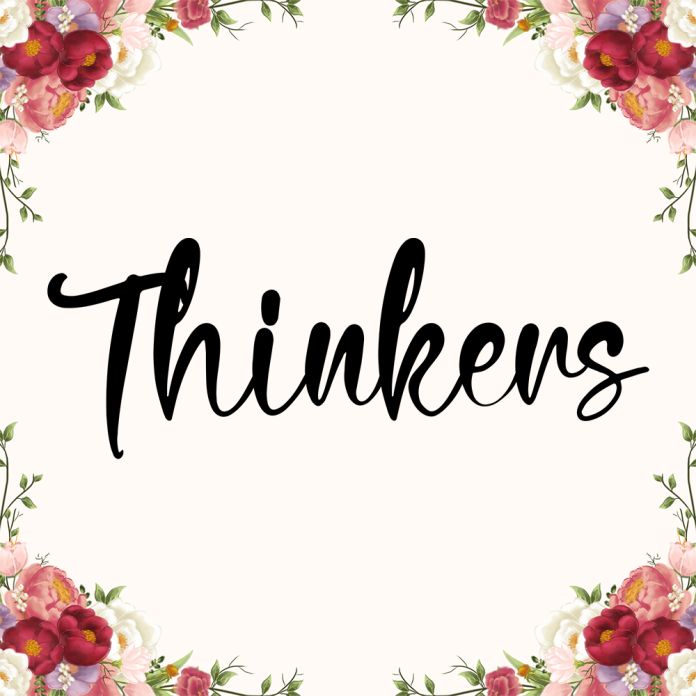
Thinkers is a warm and playful handwritten font that blends heartfelt charm with a touch of modern flair. With its long swashes and casual script style, it’s perfect for sentimental designs, Father’s Day projects, branding, or any creative work that needs a personal and friendly vibe.